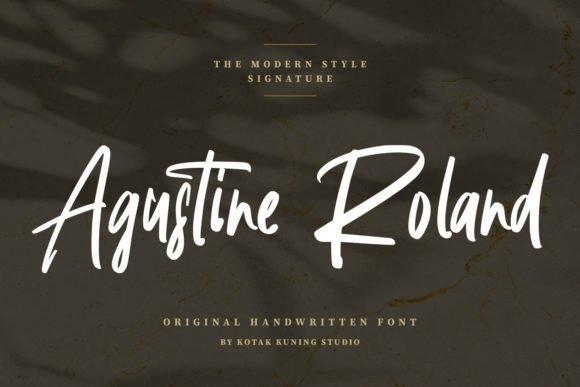
The Perfect Brush Stroke for Your Design
Have you ever stared at a blank page, trying to spark that elusive creative spark? You know, the one that makes your ideas come alive and your design dreams a reality? It’s a feeling we’ve all experienced at some point, and it’s precisely this moment when the right font can make all the difference.
Enter Agustine Roland Font, a natural and stylish handwritten font that adds an authentic touch to any design idea. Whether you’re working on a project that requires a personal, human feel or simply want to add some flair to your next graphic, this font is sure to impress. With its elegant curves and subtle imperfections, Agustine Roland Font is a valuable asset for designers looking to elevate their work and connect with their audience on a deeper level.
Agustine Roland Font Key Features
- Font Family: Agustine Roland Font
- Font Type: Script, Calligraphy
- Character Set: Latin, Cyrillic, Greek
- Unique Characteristics: Elegant, Hand-Drawn, High-End Script Font with intricate details and subtle flair, ideal for invitations, wedding stationery, and luxury branding
Agustine Roland Font Review
I recently had the chance to work with Agustine Roland Font, and I have to say it’s been an interesting experience. Here are some of my thoughts on what works well and what doesn’t.
- Unique Character Set: Agustine Roland Font has a distinct character set that can add a touch of elegance to any design.
- High-Quality Vectors: The font’s vectors are crisp and clean, making it perfect for print and digital designs.
- Good Legibility: The font is easy to read, even at smaller font sizes, which is a big plus for designers.
- Limited Font Sizes: Agustine Roland Font seems to struggle at very large font sizes, losing some of its elegance and becoming hard to read.
- Lack of Customization Options: The font doesn’t offer many customization options, which can limit its versatility in certain designs.
Overall, Agustine Roland Font is a solid choice for designers looking for a unique and elegant font. While it has some limitations, it’s still a great addition to any design arsenal. With some careful use and consideration, this font can really shine in the right projects.
Getting the Most Out of Agustine Roland Font
To get the most out of Agustine Roland Font, use it for:
- Designing invitations and event materials
- Creating art and design projects
- Adding a touch of elegance to your branding and marketing materials
Agustine Roland Font is commonly used for:
- Wedding invitations and decorations
- Artistic and creative projects
- Branding and marketing materials (e.g., logos, business cards, etc.)
Alternatives to Agustine Roland Font
Playfair Display is an elegant and luxurious serif font, ideal for headings and titles. It features intricate details and a classic touch, making it perfect for high-end designs, such as luxury brands, magazines, and fine art projects. Compared to Agustine Roland Font, Playfair Display has a more refined and sophisticated look, while Agustine Roland Font has a more modern and edgy feel.
Great Vibes is a beautiful and elegant script font, perfect for adding a touch of sophistication and elegance to designs. It’s ideal for invitations, wedding stationery, and other high-end projects. Compared to Agustine Roland Font, Great Vibes has a more flowing and cursive look, while Agustine Roland Font has a more modern and geometric feel.
Pacifico is a modern and elegant script font, perfect for adding a touch of sophistication and elegance to designs. It’s ideal for branding, packaging, and advertising projects. Compared to Agustine Roland Font, Pacifico has a more relaxed and casual look, while Agustine Roland Font has a more modern and edgy feel.